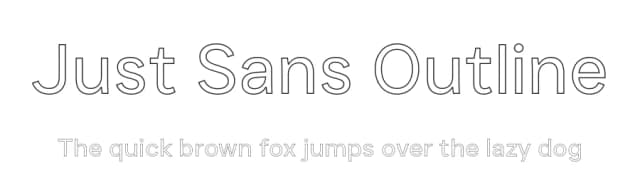
About Just Sans Font
JUST Sans is a highly versatile clean minimal typeface with endearing, modernist warmth, geometric legibility, and a distinctive friendly bite.
| Designer | Eugene Tantsurin |
Just Sans ships with 12 OpenType features you can switch on in apps that support them (Illustrator, InDesign, Affinity, Figma, CSS font-feature-settings).
- Stylistic sets (5)
Just Sans Font